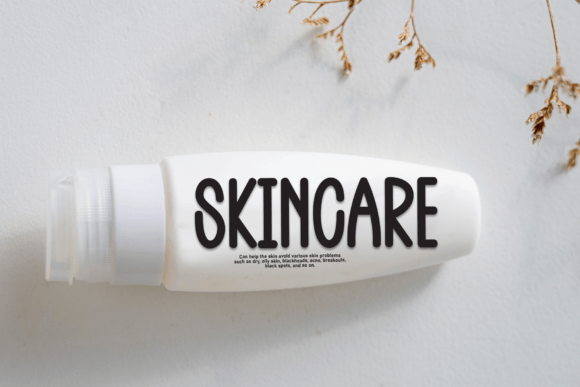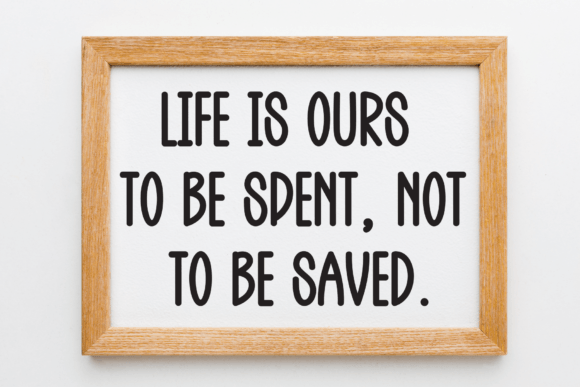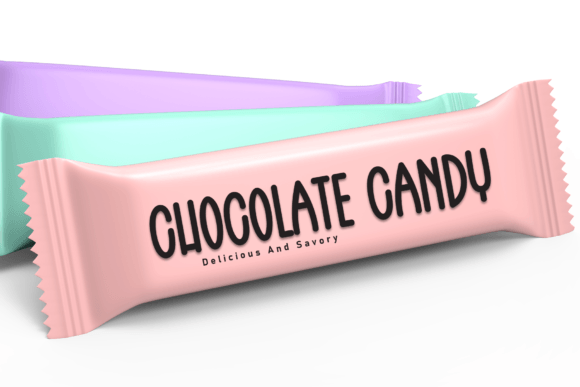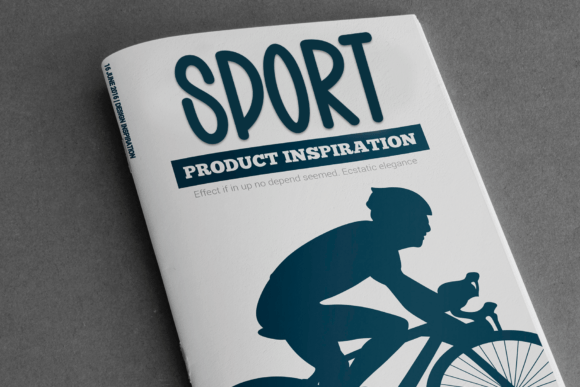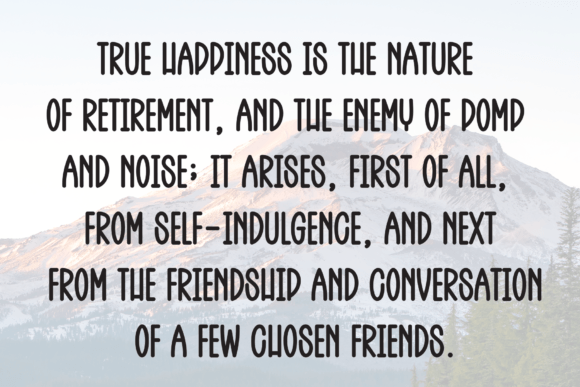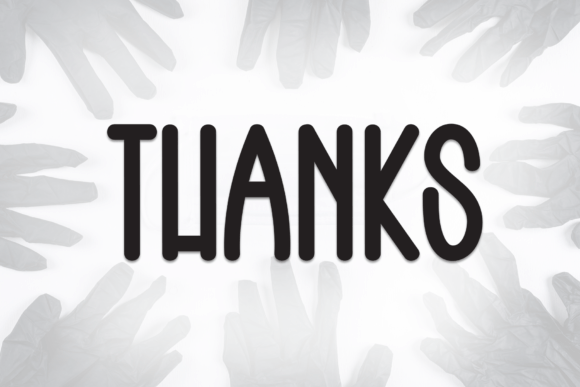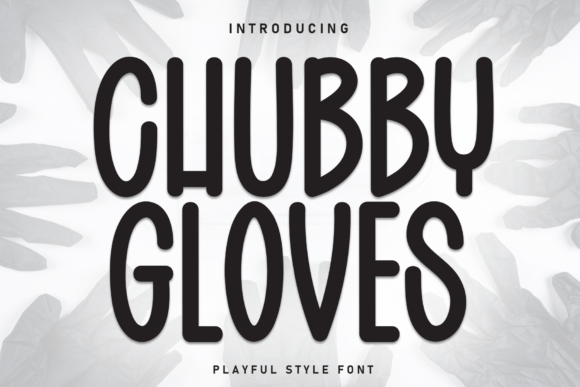
Introducing Chubby Gloves Font: The Sweet and Friendly Handwritten Font for Your Creative Projects
Are you a designer, crafter, or DIY enthusiast looking for a unique and friendly font to add a personal touch to your projects? Look no further than Chubby Gloves Font! This sweet and friendly handwritten font is perfect for a wide range of designs, from crafting and DIY tutorials to social media graphics, invitations, and more.
The Charm of Chubby Gloves Font
Chubby Gloves Font boasts a natural and unique style that makes it incredibly versatile. Its handwritten charm and friendly vibe make it perfect for projects that require a personal and approachable feel. Whether you’re creating a tutorial, a social media post, or a handmade product label, Chubby Gloves Font is sure to add a touch of warmth and personality to your design.
What Makes Chubby Gloves Font So Special?
So, what sets Chubby Gloves Font apart from other fonts? Here are just a few reasons why designers and crafters love this font:
- Unique and Handwritten Style: Chubby Gloves Font features a one-of-a-kind, handwritten style that’s both sweet and friendly.
- Natural and Effortless Look: This font has a natural, effortless look that’s perfect for designs that require a personal touch.
- Highly Versatile: Chubby Gloves Font can be used for a wide range of projects, from crafting and DIY tutorials to social media graphics and invitations.
- Easy to Read: Despite its playful style, Chubby Gloves Font is easy to read, making it perfect for designs that require a clear and concise message.
How to Use Chubby Gloves Font in Your Projects
Using Chubby Gloves Font in your projects is easy! Here are a few ideas to get you started:
- Crafting and DIY Tutorials: Add a personal touch to your crafting and DIY tutorials with Chubby Gloves Font. Use it to create titles, headings, and body text that’s both informative and visually appealing.
- Social Media Graphics: Use Chubby Gloves Font to create social media graphics that stand out from the crowd. Its friendly and approachable style makes it perfect for Facebook posts, Instagram captions, and more.
- Invitations and Party Decor: Add a touch of whimsy to your invitations and party decor with Chubby Gloves Font. Use it to create custom invitations, party banners, and more.
- Handmade Product Labels: Use Chubby Gloves Font to create custom labels for your handmade products. Its unique and handwritten style makes it perfect for adding a personal touch to your products.
Tips and Tricks for Working with Chubby Gloves Font
Here are a few tips and tricks to help you get the most out of Chubby Gloves Font:
- Experiment with Font Sizes: Don’t be afraid to experiment with different font sizes to add visual interest to your design.
- Pair with Other Fonts: Chubby Gloves Font pairs well with other fonts, so don’t be afraid to experiment with different font combinations.
- Use it for Headings and Titles: Chubby Gloves Font is perfect for headings and titles, so use it to add a touch of personality to your design.
In conclusion, Chubby Gloves Font is a sweet and friendly handwritten font that’s perfect for designers, crafters, and DIY enthusiasts. Its unique and natural style makes it incredibly versatile, and its friendly vibe makes it perfect for projects that require a personal touch. Whether you’re creating a crafting tutorial, a social media graphic, or a handmade product label, Chubby Gloves Font is sure to add a touch of warmth and personality to your design.